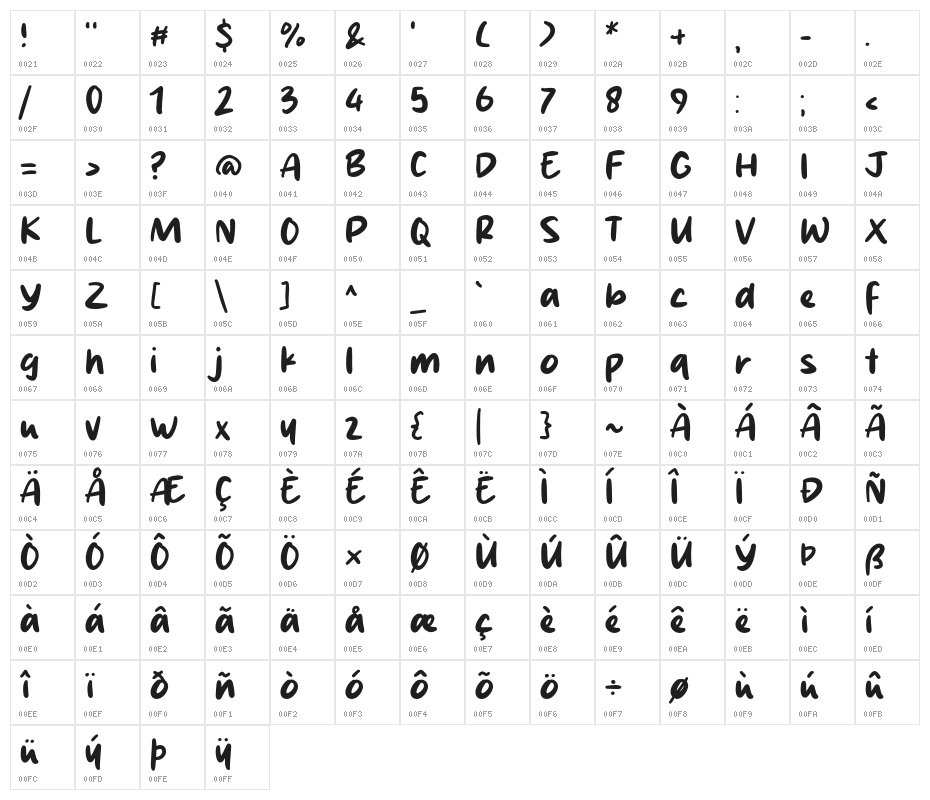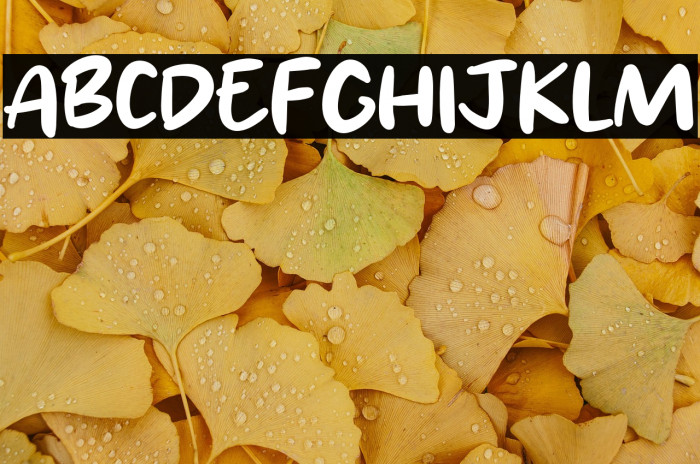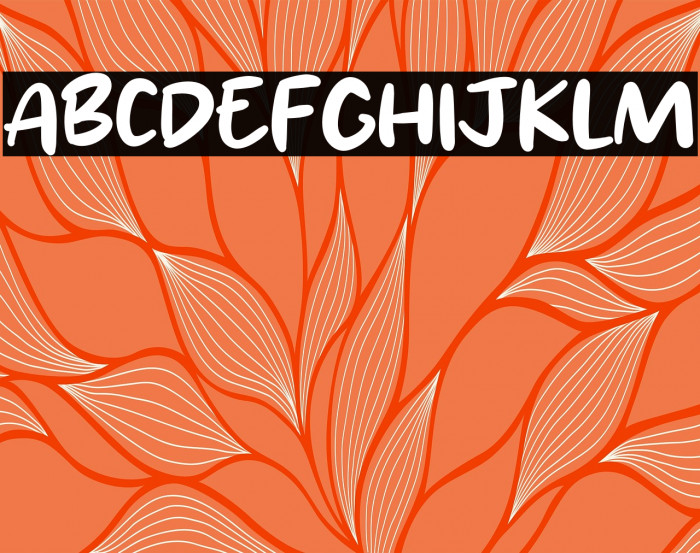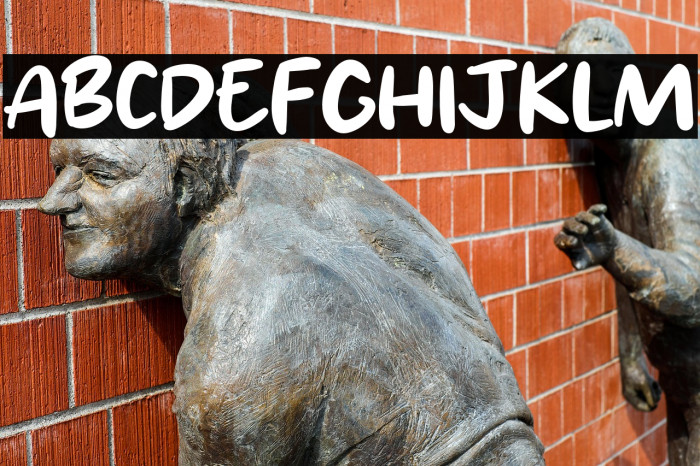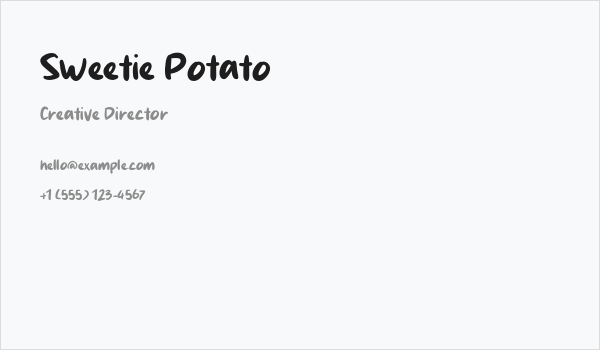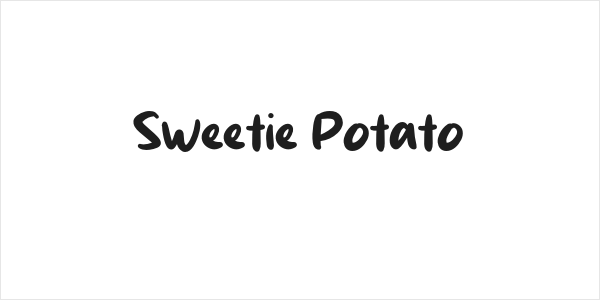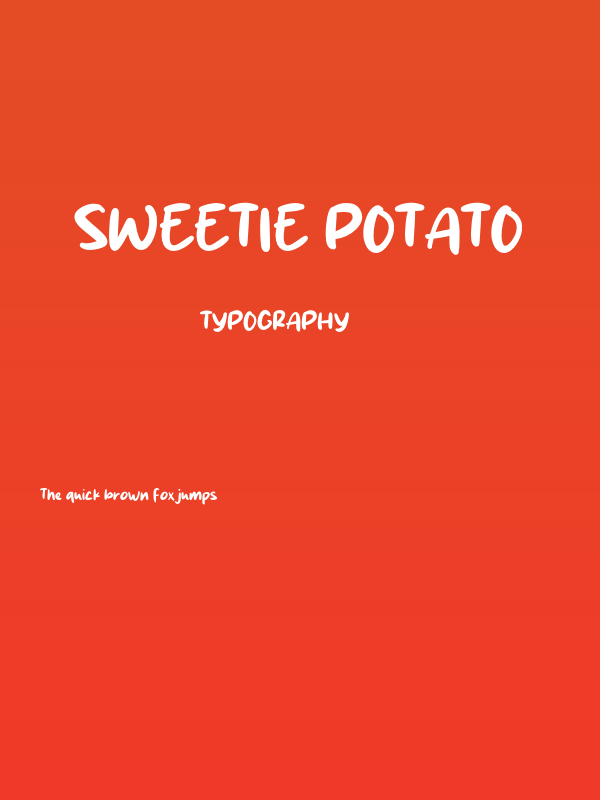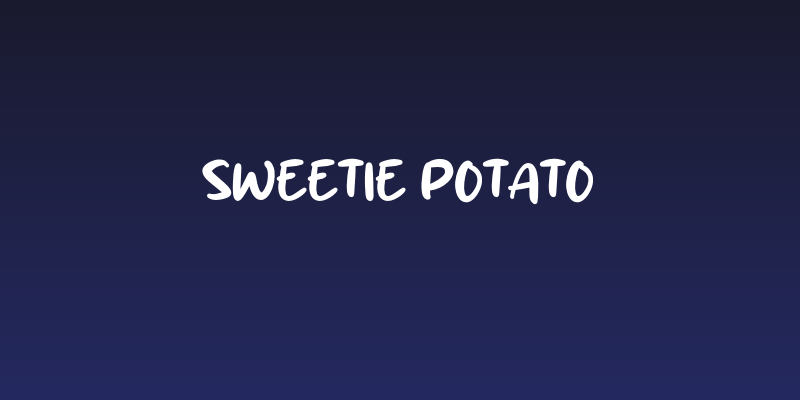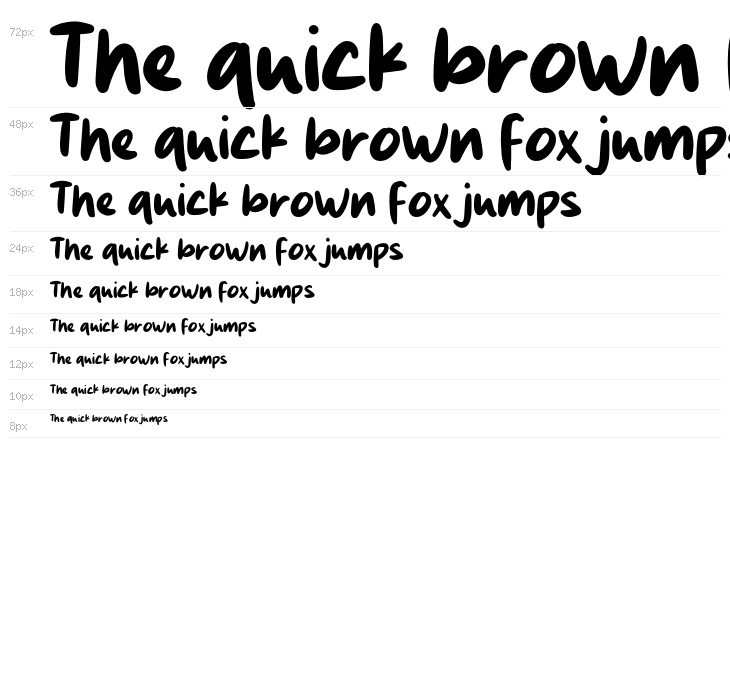
Sweetie Potato Font
Sweetie Potato Description
This font exudes a playful and casual vibe, characterized by its bold, rounded strokes and handwritten style. The letters are slightly irregular, adding a personal and informal touch. The uppercase and lowercase letters maintain a consistent flow, with rounded edges and a smooth, flowing appearance. The numerals and special characters follow the same style, ensuring uniformity across all elements. This font is highly legible, with each character distinctly separated, making it suitable for a variety of creative projects.
| Proposed Projects | Ideal for greeting cards, children's books, playful branding, and social media graphics. |